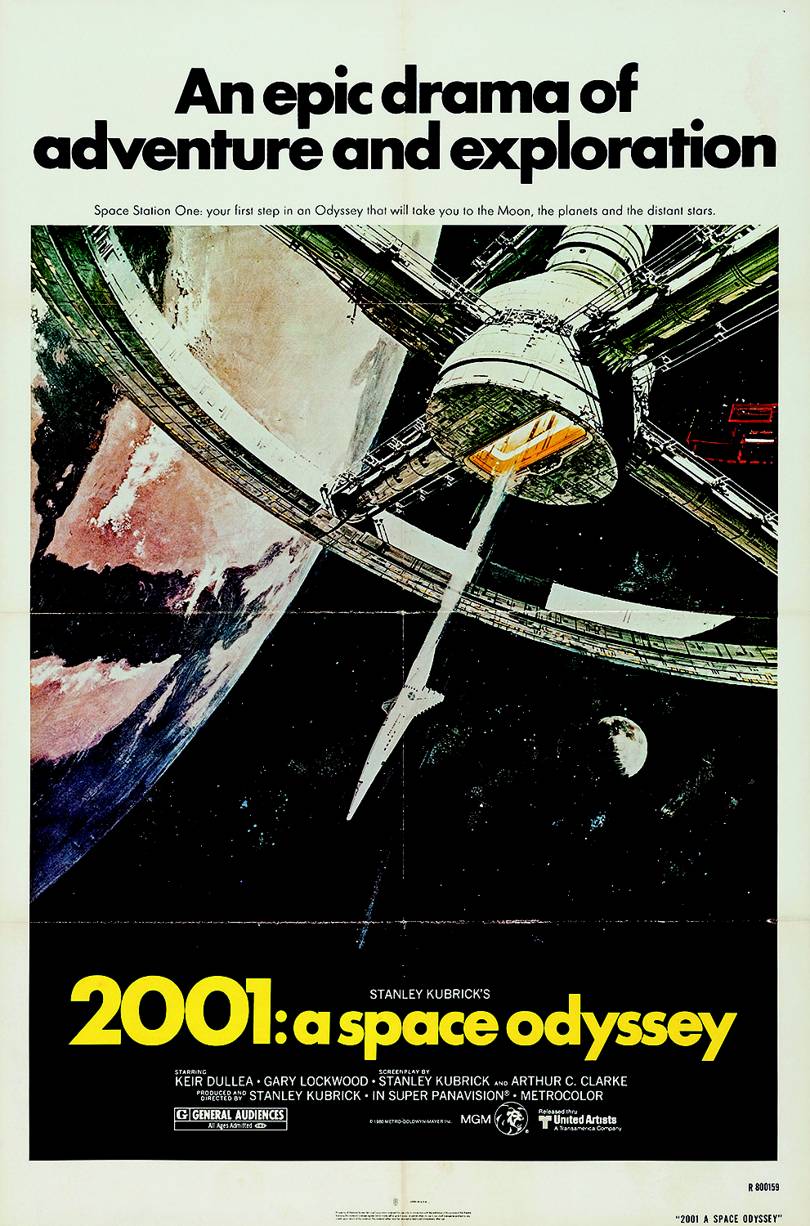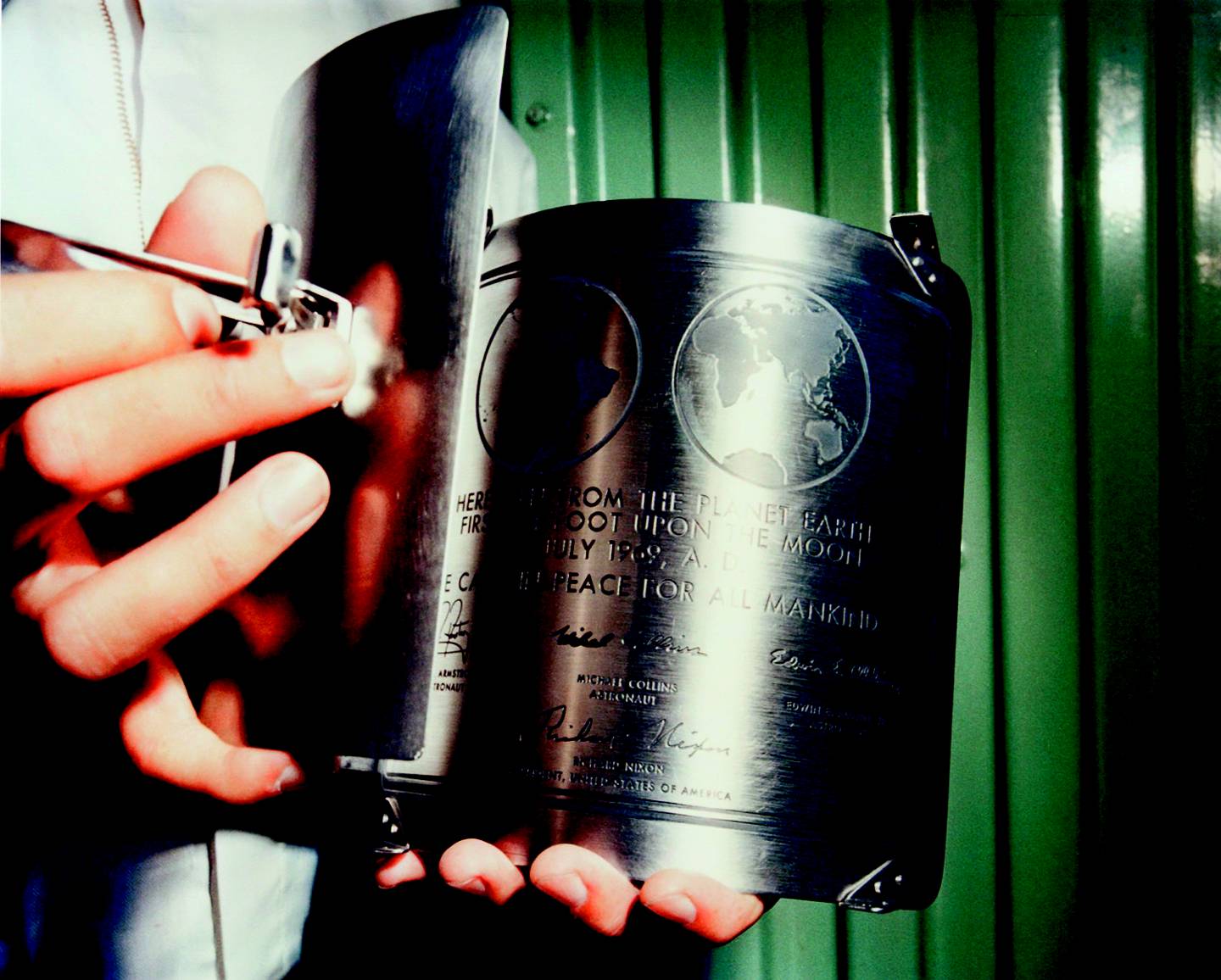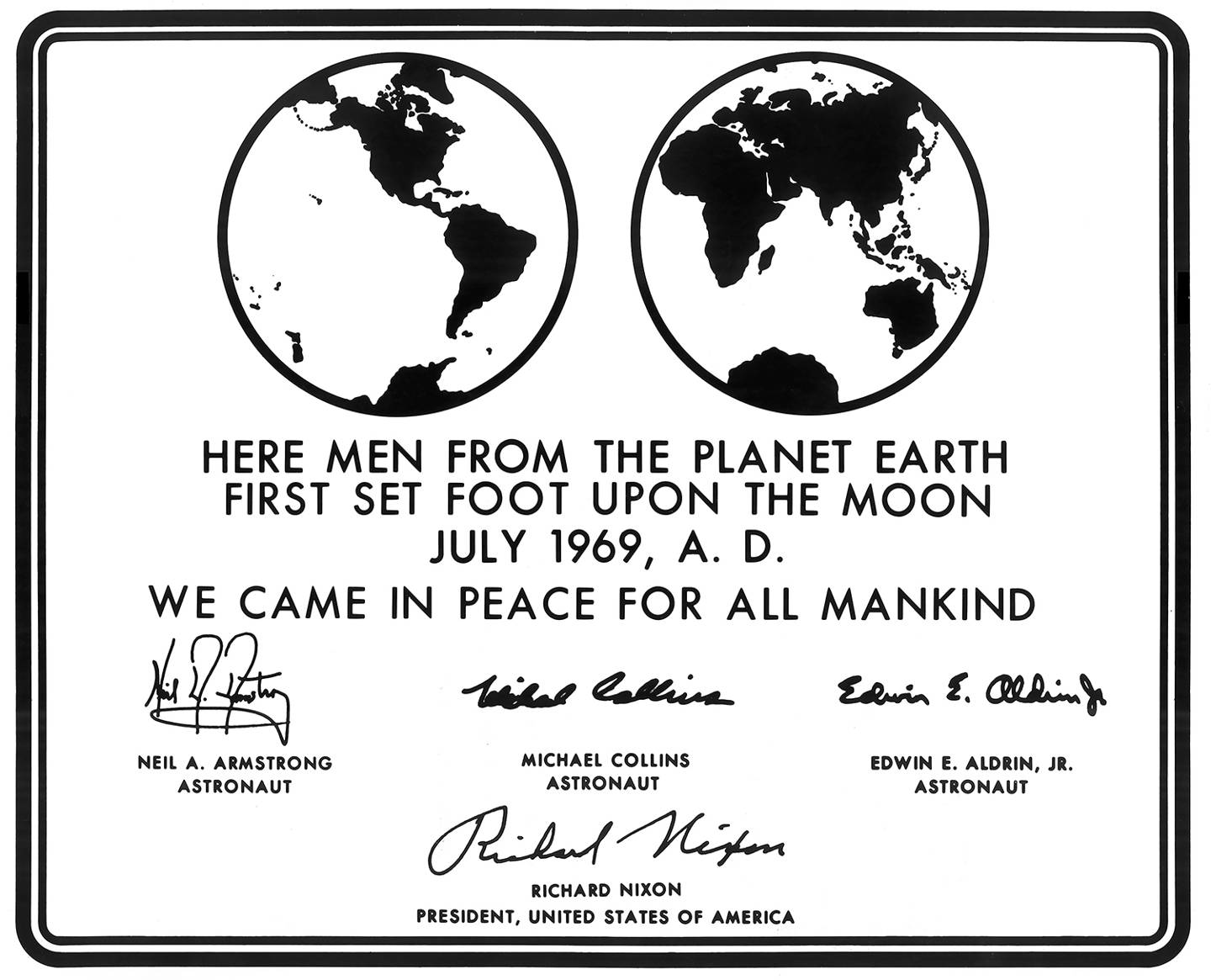
How Apollo 11 launched Futura to the moon
More than half a century ago, on July 20 1969, the world heard a quote destined to become iconic famous. “That's one small step for (a) man, one giant leap for mankind” said as Neil Armstrong lowered onto the surface of the Moon and this quote of him is probably evidence of “humankind's single greatest technological achievement.”
Neil Armstrong, Buzz Aldrin and Michael Collins were strapped into their Apollo spacecraft on top of Saturn V rocket on 16 July 1969. Four days later, Armstrong and Aldrin were officially the first humans to set foot on the lunar surface bringing a typeface along the Moon. Futura has landed and what a stunning journey has this font accomplished!
The geometric sans-serif typeface designed by Paul Renner and released in 1927 was designed as a contribution on the New Frankfurt-project.
Based on geometric shapes, especially the circle, similar in spirit to the Bauhaus design style of the period Futura was developed as a typeface by the Bauer Type Foundry, in competition with Ludwig & Mayer's seminal Erbar typeface of 1926.
Futura's forwardness and simple geometric forms are evident in the lunar plaque Aldrin and Armstrong left behind once they were lifted off the lunar surface.
Futura's near-perfect circles, triangles and squares, based on low in contrast strokes of near-even weight were ideal for NASA, after all the typeface's slogan in the font's brochure was “die Schrift unserer Zeit” (“the typeface of our time”) and in English "the typeface of today and tomorrow." But Futura didn't land on the Moon because of Stanley Kubrick's extensive use in his opus “2001: A Space Odyssey” as many claim.
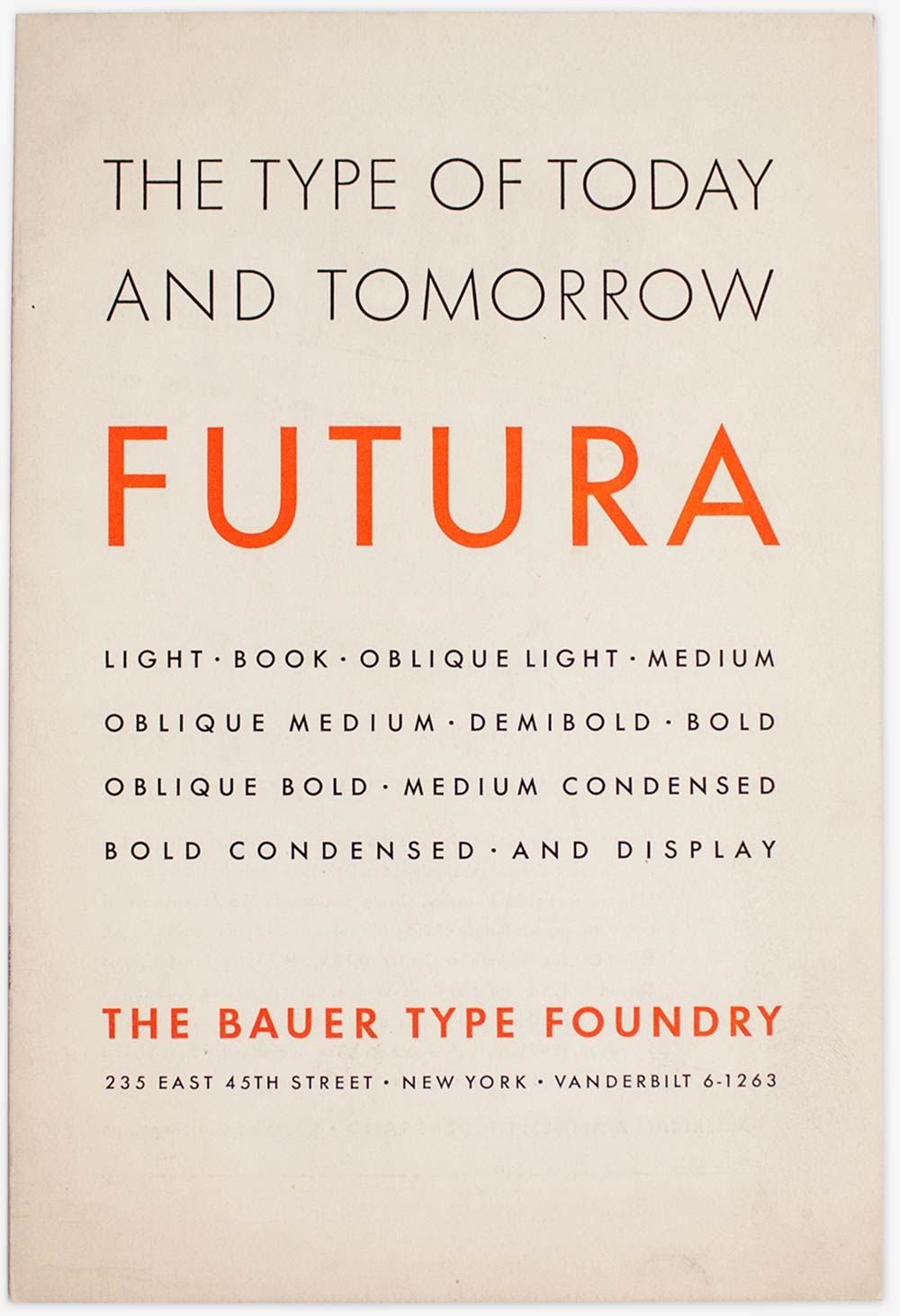
“Futura wasn’t just a ceremonial embellishment, or a sunny commentary on the goals and ethos of NASA, the Apollo missions, and the United States. Rather, Futura (or one of its American clones, like Spartan) preceded the space program as a systems typeface, a method of communication and labeling that unified parts of the military, and then NASA’s myriad actors: contractors, engineers, and astronauts” writes Douglas Thomas.
“By the 1950s and ’60s, Futura had established itself as a visual cue for authority. It signaled factual information in headings, footnotes, and fine print across thousands of textbooks, newspapers, encyclopedias, and magazines. Futura’s visual authority sprang from its ubiquity, effectively robbing the typeface of its avant-garde exclusivity. In this environment, NASA didn’t choose Futura as a grand aesthetic statement of modernism unique to space travel. The U.S. Army had been using Futura as the basis for its detailed global mapping project since World War II, and the US Air Force had started using Futura on labels for its missiles by the late 1950s. By the time of the Apollo program in the 1960s, Futura was a generic choice for military operations” he adds in this article adapted from the book “Never Use Futura” (Princeton Architectural Press, 2017).
Futura's trip to where no other typeface has gone before was obviously not the last frontier for one of the world's most popular typefaces ever.
Futura's geometric authority was used extensively by the publishing industry as a general-purpose font lines until the 1950s whilst the use of the font is widespread in the aerospace industry for flight instrument and control markings.
Popular with Hollywood and any industry alike (from transport, an area where Futura has been used extensively due to its ability to be read quickly from a distance through aviation and more) NASA made Futura part of humanity's history on this day fifty years ago.